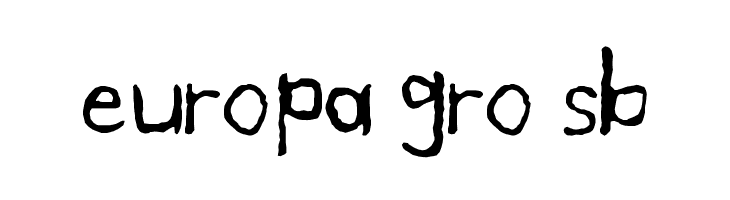
( Fonts by Luis Angel Uribe - luisangeluribe.wordpress.com )
A whimsical, decorative font with playful, creature-like embellishments.
( Fonts by Rodrigo German - RASDESIGN )
A playful, bold font with a whimsical, cartoonish style.
( Fonts by Luis Angel Uribe - luisangeluribe.wordpress.com )
A playful, hand-drawn font with a whimsical, doodle-like style.